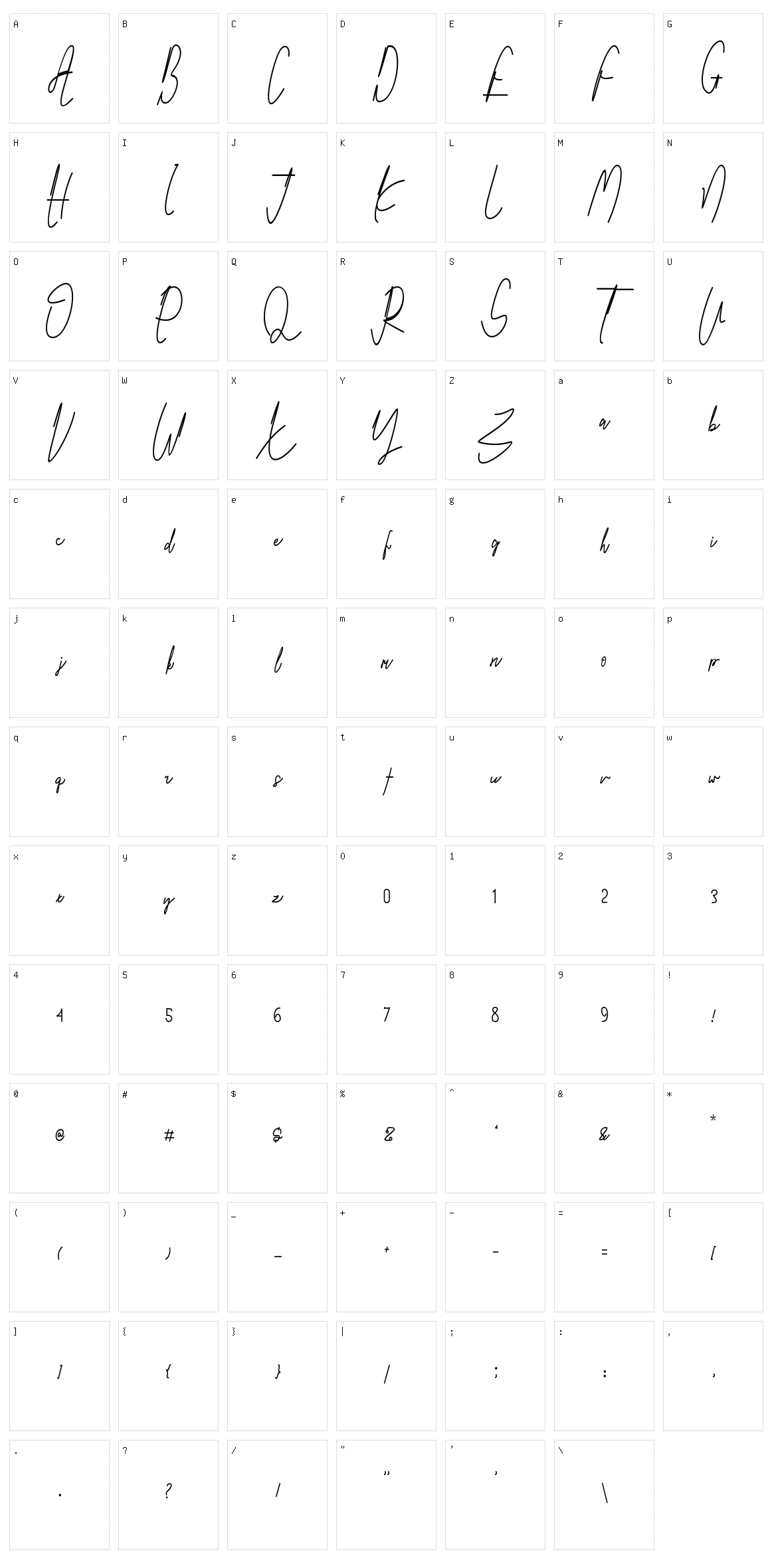
The free font Royal Hamilton is carefully designed by Dhw Type, showcasing a thoughtful balance of creativity and usability and falls under the Script font style. When you download the ZIP file, it contains only 25.48 KB of font files, making it lightweight and quick to download. Please review the license details below to understand permitted usage and distribution rights. If license information is not available, we recommend using this font for personal projects only or contacting the author directly for commercial usage permissions.